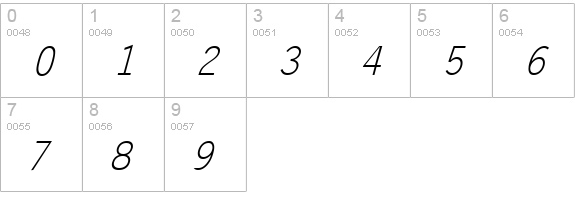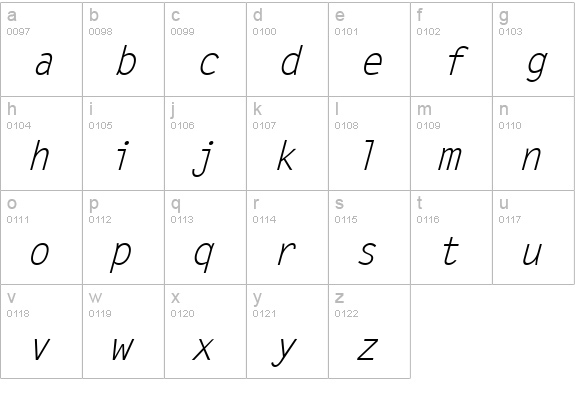
QTLetterGoth Italic Font Details
QTLetterGoth Italic is a distinctive, italic variant in the QTLetterGoth typeface family \xE2\x80\x94 well suited to design and typography projects.
Introducing QTLetterGoth Italic, a captivating and elegantly designed font that seamlessly blends vintage charm with a modern twist. This font is perfect for those seeking a unique and sophisticated look for their projects. With its beautifully crafted letterforms, this typeface exudes an air of mystery and allure, making it ideal for a wide range of creative endeavors. QTLetterGoth Italic is not only visually stunning, but it also offers exceptional versatility. Whether you're designing a logo, creating a striking headline, or crafting a captivating invitation, this font will undoubtedly make a lasting impression. Its slanted and italicized appearance adds a touch of drama and flair, elevating any design to new heights. One of the most outstanding features of QTLetterGoth Italic is its availability as a free font. Yes, you read that right – this remarkable typeface can be freely downloaded at FontsMarket.com. This means that not only do you get access to its unparalleled aesthetics, but you can also enjoy the convenience of obtaining it without any cost. It's a win-win situation for designers and enthusiasts alike. Don't miss out on the opportunity to enhance your creative projects with the captivating beauty of QTLetterGoth Italic. Download it now from FontsMarket.com and experience the seamless blend of vintage charm and contemporary style that this font has to offer. Whether you're a professional designer or someone with a passion for typography, this font is sure to become a valuable addition to your collection. Embrace the allure of QTLetterGoth Italic and let your creativity soar to new heights.